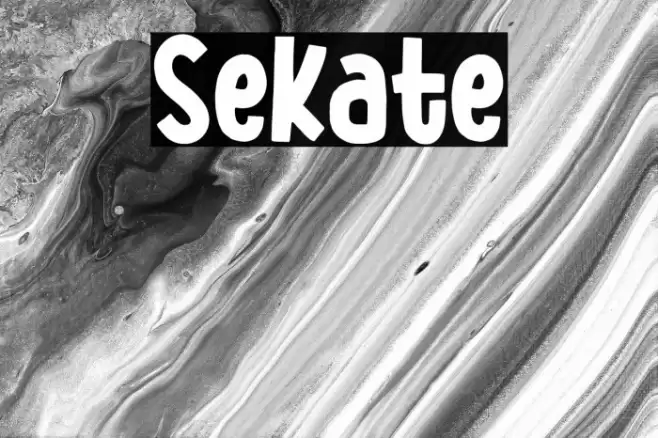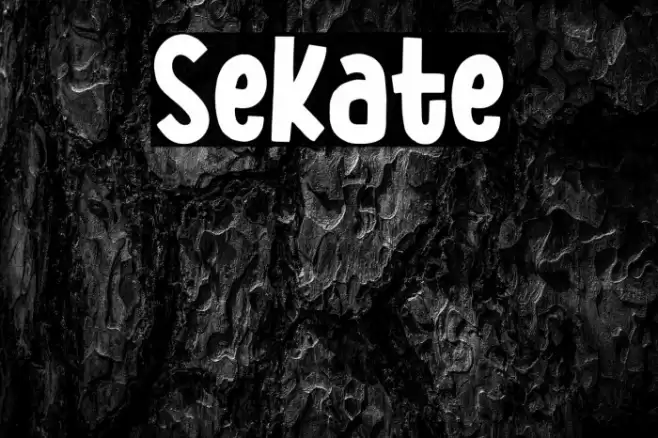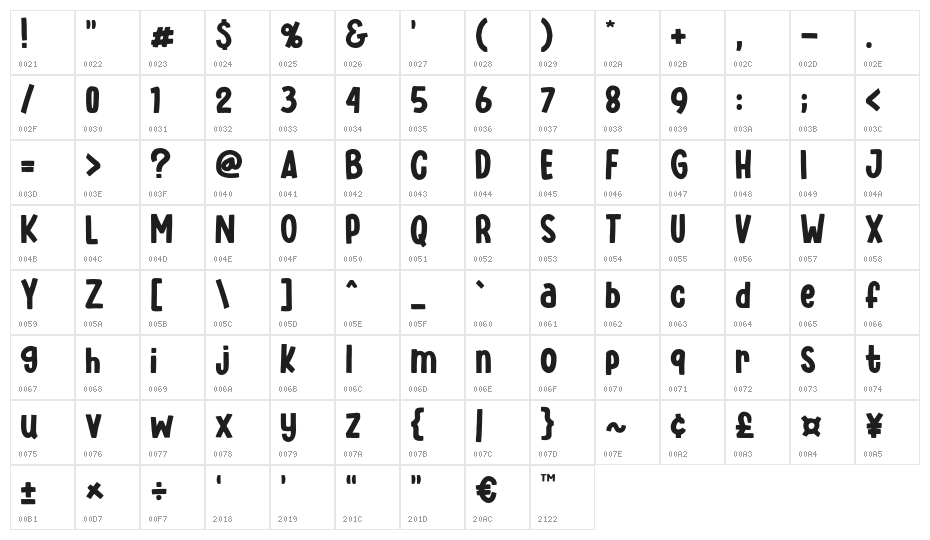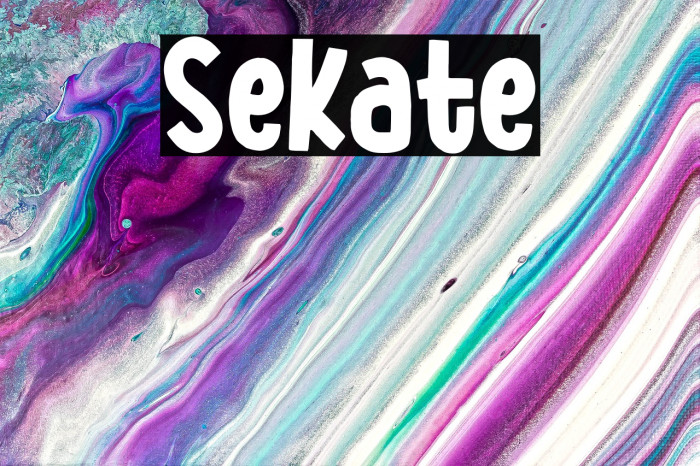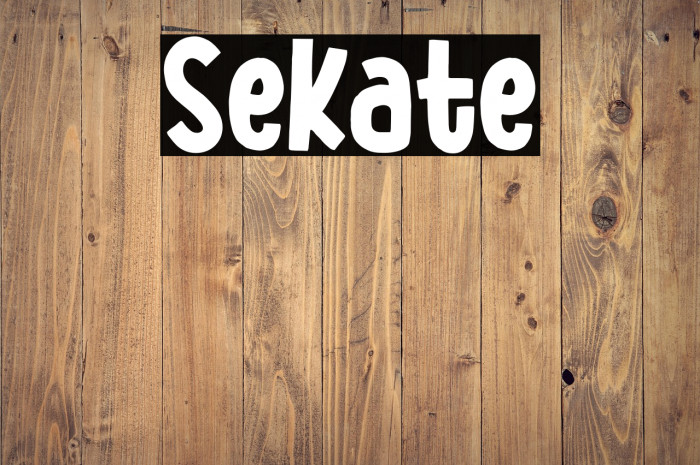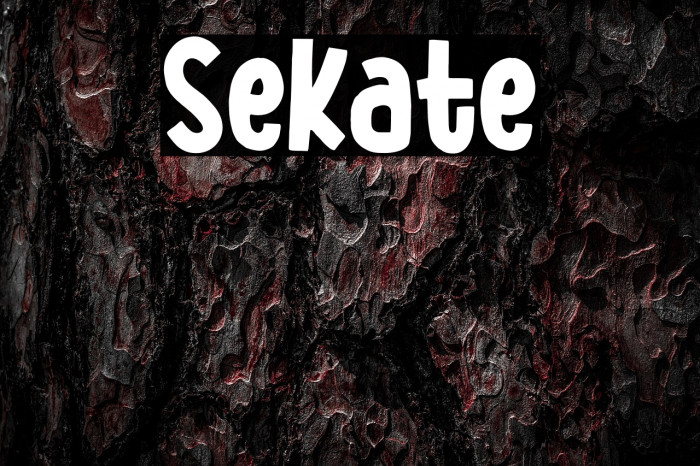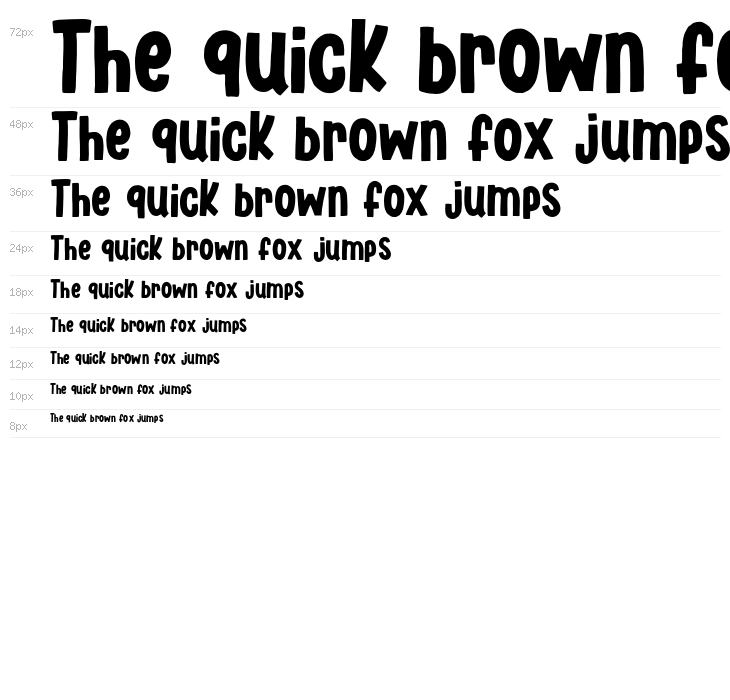
Sekate Font
Sekate Description
This font features a bold and playful style with a hand-drawn appearance. The characters are thick and rounded, giving them a friendly and approachable look. The uppercase and lowercase letters maintain a consistent width, contributing to a cohesive design. The numbers and special characters follow the same stylistic approach, ensuring uniformity across all glyphs. The font's whimsical nature makes it suitable for creative projects that require a touch of fun and personality.
A bold, playful, hand-drawn font with rounded characters from Cartoon fonts.
- Font: Sekate
- Proposed Projects: Ideal for children's books, playful branding, posters, and greeting cards.
- Overall Style: Playful